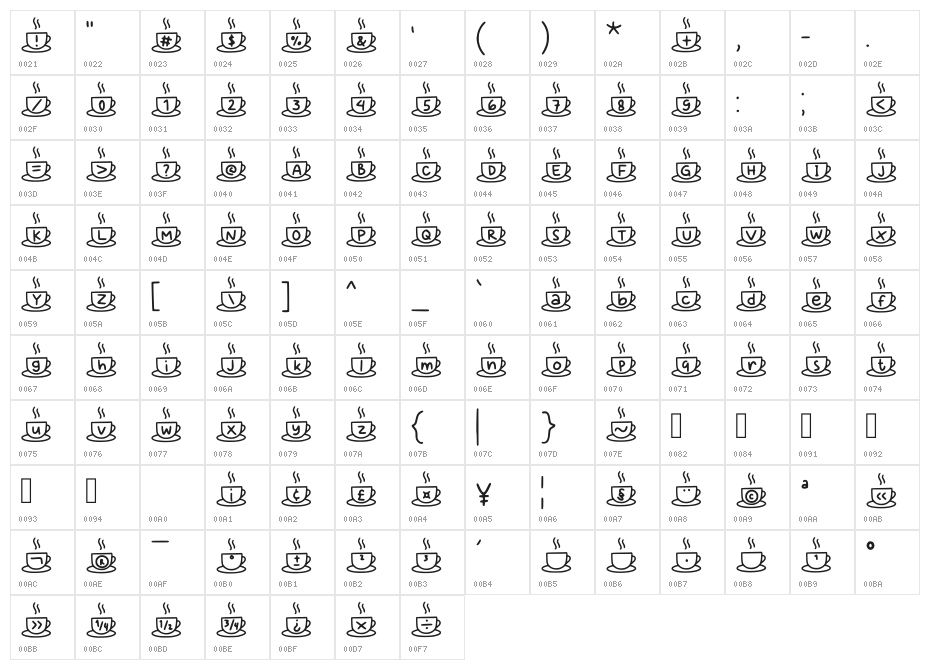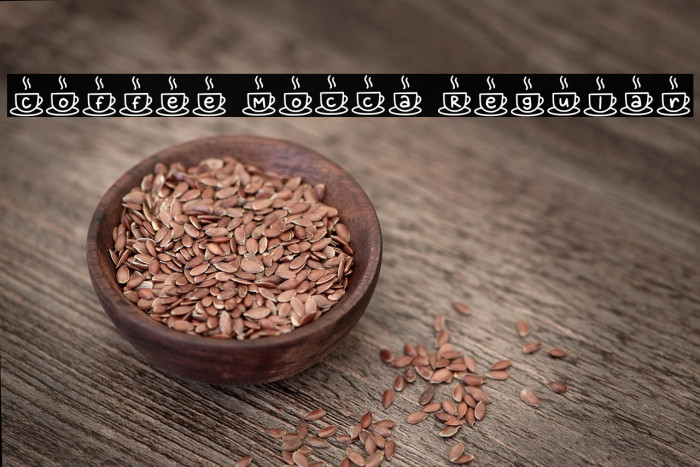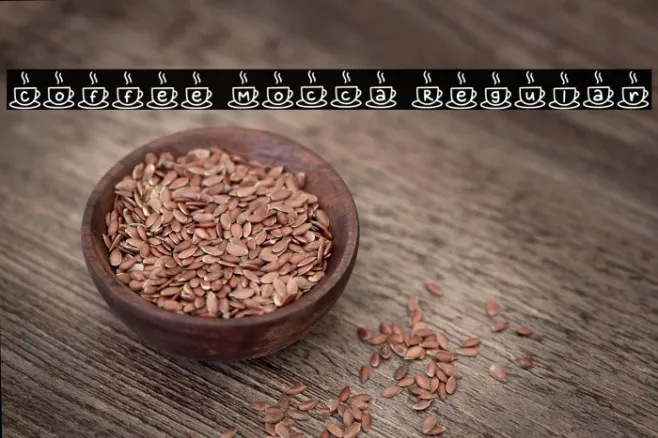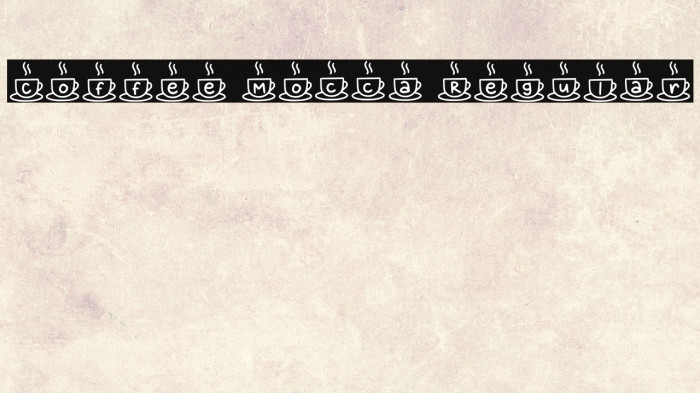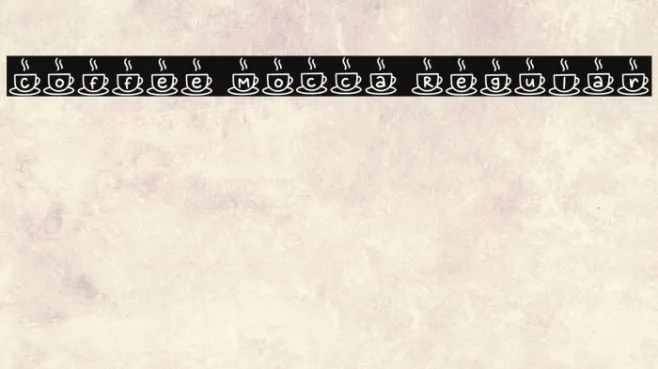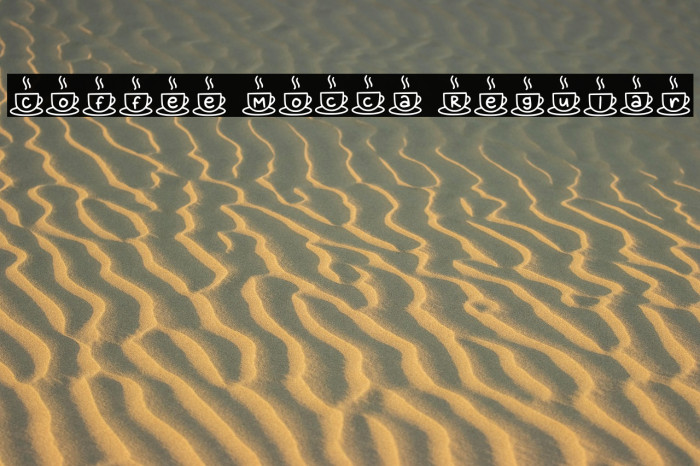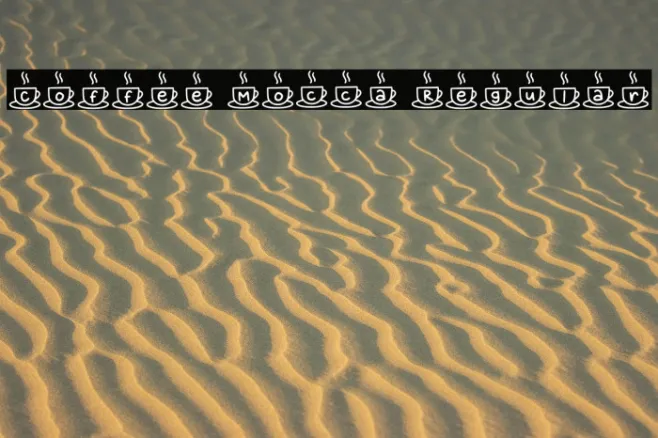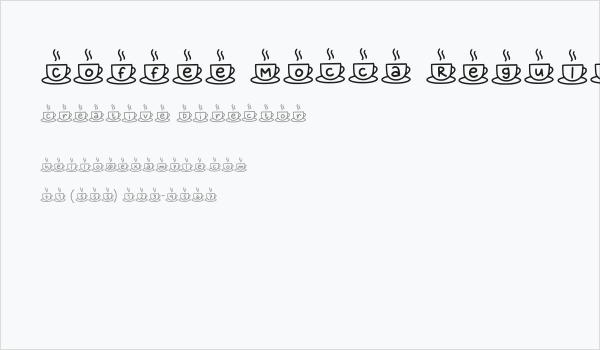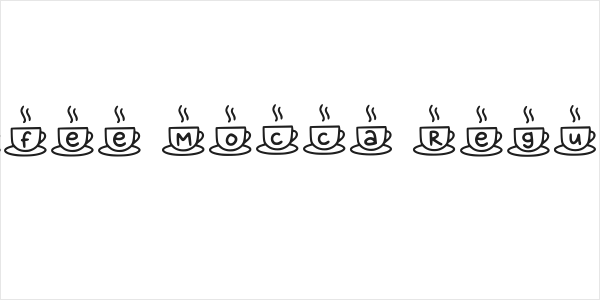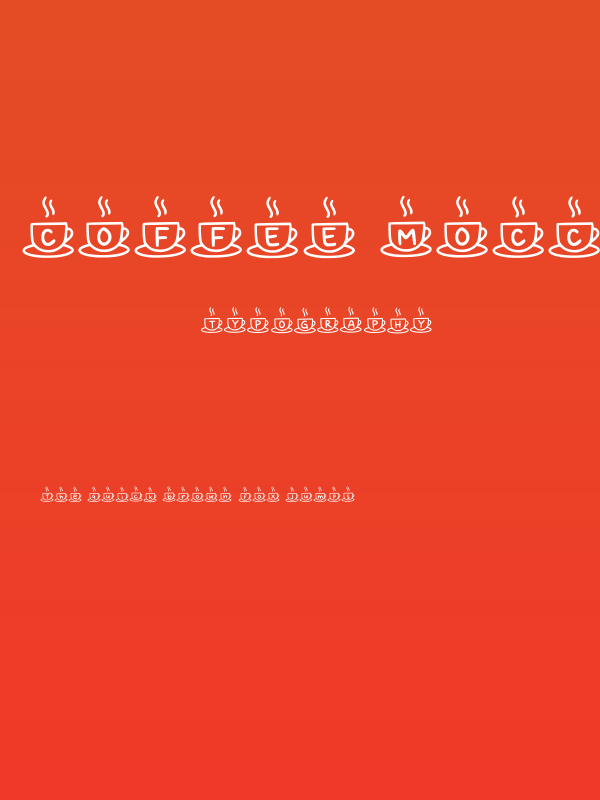
Coffee Mocca Regular Font
Coffee Mocca Regular Description
This playful and whimsical font features each character enclosed within a steaming coffee cup, creating a unique and engaging visual experience. The letters are bold and clear, making them easily readable despite the decorative elements. The steam rising from each cup adds a dynamic and lively touch, enhancing the overall aesthetic. This font combines a sense of fun with practicality, making it suitable for a variety of creative projects. The consistent design across uppercase, lowercase, numbers, and special characters ensures a cohesive look.
| Proposed Projects | Ideal for coffee shop branding, playful posters, children's books, and themed event invitations. |